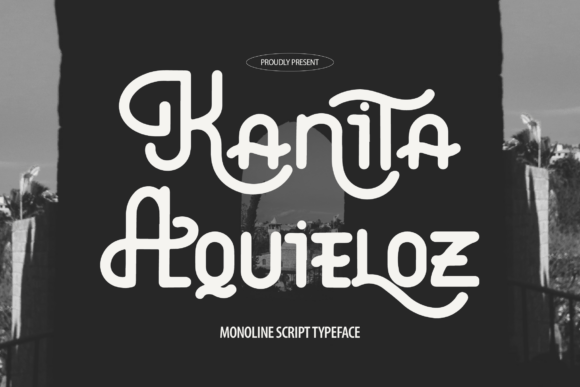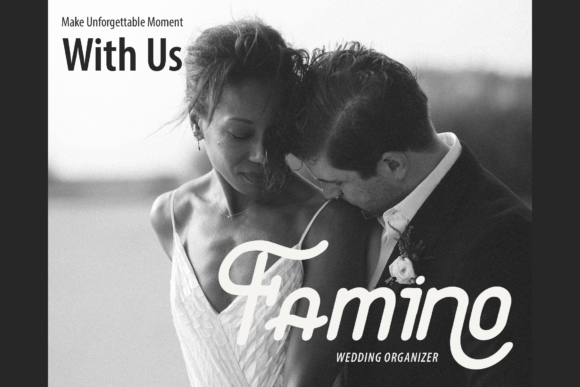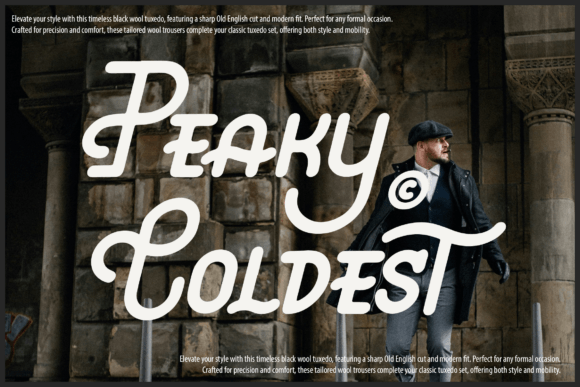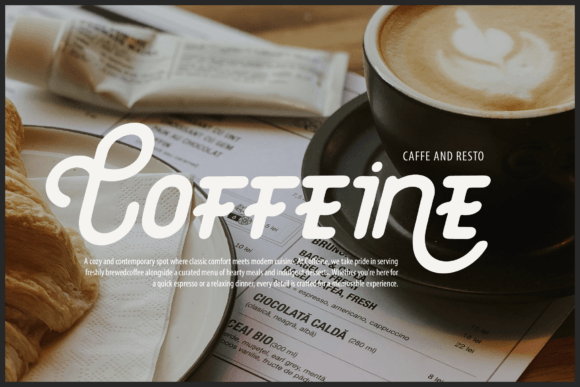
The Perfect Blend of Elegance and Whimsy: Kanita Aquieloz Font
As a designer, there’s nothing quite like the thrill of bringing a concept to life. The moment when all the pieces come together, and you see your vision take shape – it’s pure magic. But, it’s not just about the end result; it’s about the journey, the experimentation, and the discovery of the perfect tools to make it happen. And that’s where the Kanita Aquieloz Font comes in – a smooth and elegant script font that adds a personal and stylish touch to your designs.
This beautiful font is perfect for adding a touch of whimsy to invitations, logos, and other creative projects. Its flowing, handwritten style makes it a valuable addition to any designer’s toolkit, offering endless possibilities for self-expression and creativity. Whether you’re a seasoned pro or just starting out, the Kanita Aquieloz Font is an essential resource that’s sure to elevate your designs to the next level.
- Unique Characteristics: Kanita Aquieloz Font features a unique blend of modern and traditional design elements, with subtle flair and elegance that sets it apart from other fonts in its class.
Kanita Aquieloz Font Review
Kanita Aquieloz is an elegant and sophisticated font that truly shines in its usage ✨. Its clean lines and subtle curves evoke a sense of luxury and refinement. The font’s versatility allows it to be used in a variety of applications, from formal invitations to high-end branding materials.
One of the standout features of Kanita Aquieloz is its exceptional legibility ✨. The font’s clear and concise design makes it easy to read, even at smaller font sizes. This makes it an excellent choice for body text, headings, and other areas where readability is crucial.
However, there are some limitations to consider ⚠️:
- Lack of bold and italic variations, which may limit its use in certain situations.
- The font’s subtle curves may not be suitable for highly energetic or playful designs.
- Some users may find the font too minimalist or plain.
Overall, I would give Kanita Aquieloz a solid 4 out of 5 stars. While it has some limitations, its elegant design and exceptional legibility make it a great choice for a wide range of applications. With some careful consideration of its limitations, Kanita Aquieloz can be a valuable addition to any designer’s toolkit.
The Kanita Aquieloz font is ideal for creative projects such as graphic design, digital art, and typography. It’s also suitable for use in branding, logos, and marketing materials. Use it to add a touch of elegance and sophistication to your designs.